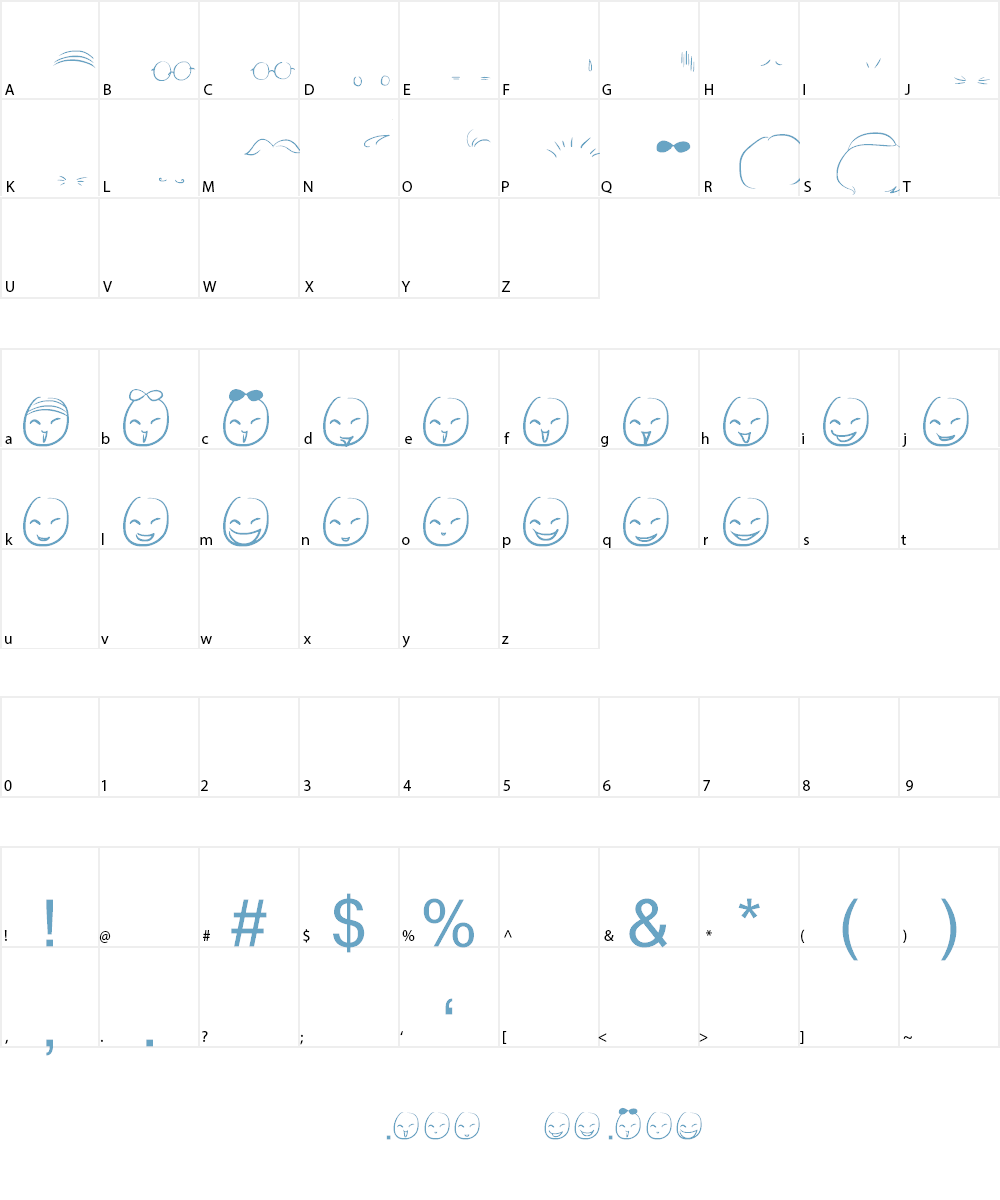
Mini Smile (Symbol font) contains only 37 characters (I'll add more characters when I have a free time) but you can mix a lot of special symbols for yourself :) Very suitable for decorating cards among friends.
Note: Uppercases always precede lowercases, example: IOq, HAPr, ISm, EBRl, CGi, EHMg, etc.